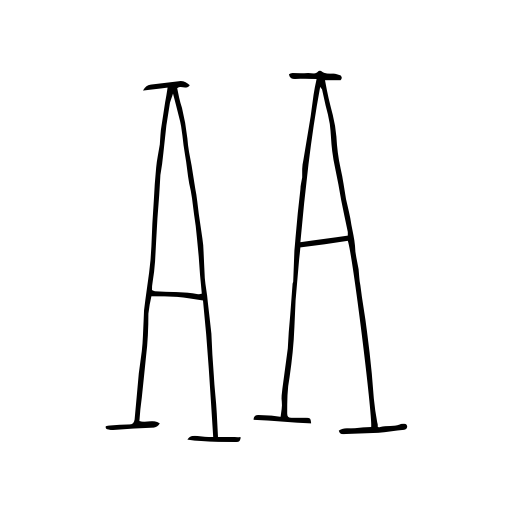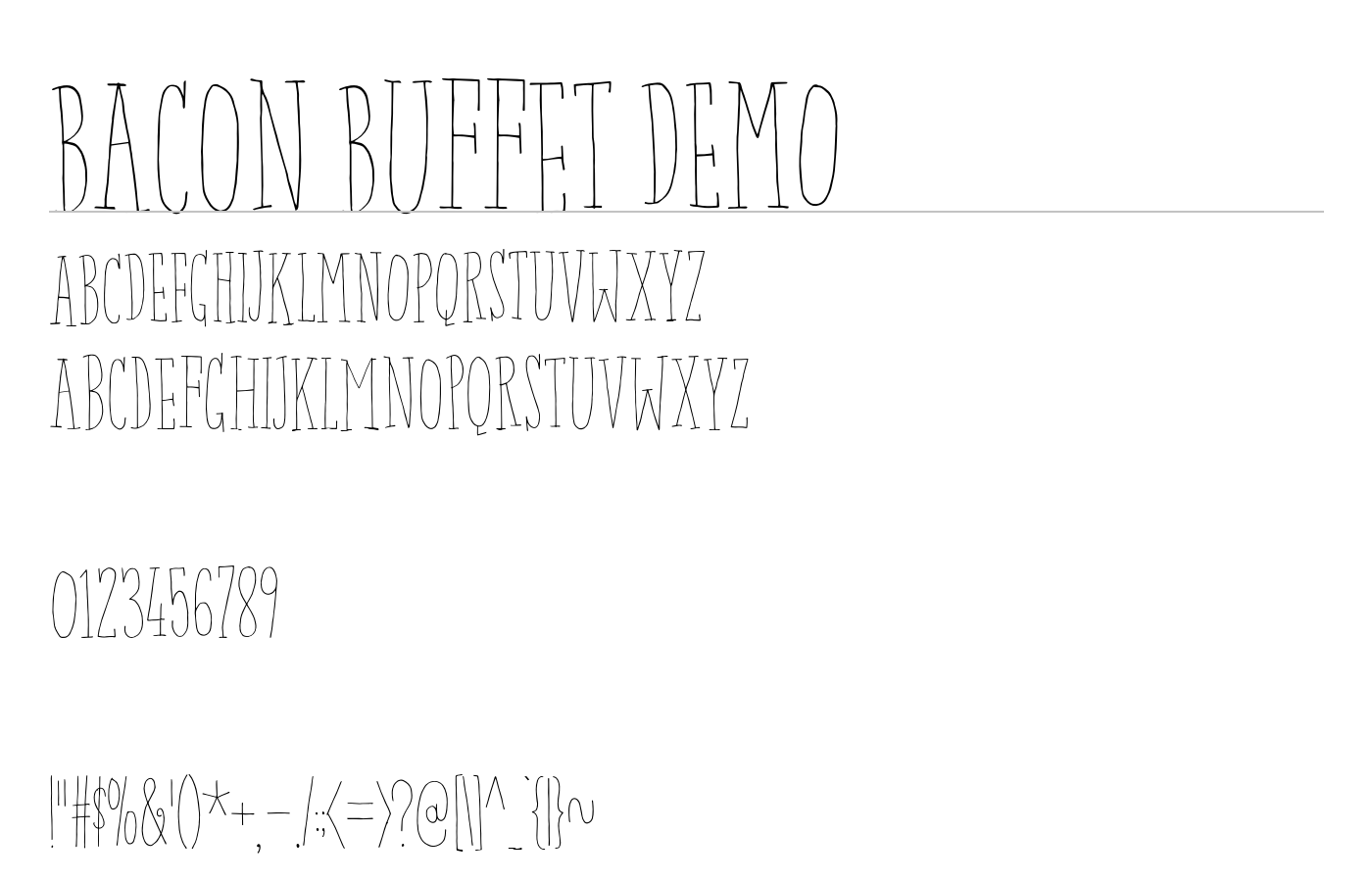
Bacon Buffet DEMO is a tall, narrow, and whimsical sans serif font with a hand-drawn, playful feel. Its thin, uneven strokes and quirky letterforms give it a casual and creative personality, making it perfect for fun, informal designs like children’s books, quirky branding, or artistic posters. This font works best in headlines or decorative text where a unique, charming style is desired.
Bacon Buffet DEMO Font
| Designer | Jakob Fischer / pizzadude.dk |